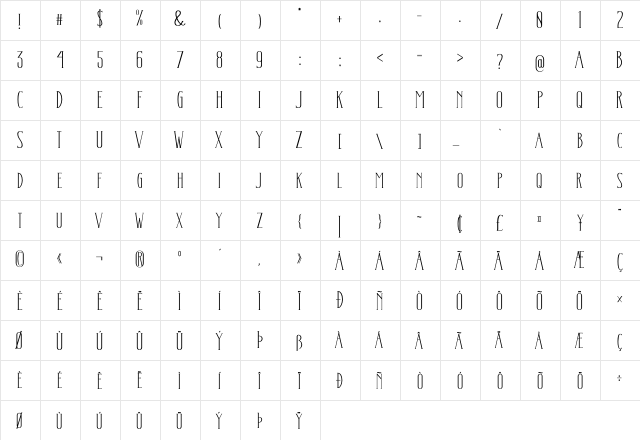
Stickman Serif Regular
Design Context for Stickman Serif Typeface
Stickman Serif carries the refined structure of traditional serif typography, with bracketed terminals and considered proportions that communicate credibility and craft.
Pro Tip: Use Stickman Serif for editorial body copy and considered headline work. Pair with a neutral sans for UI elements or captions to create a classic hierarchy.